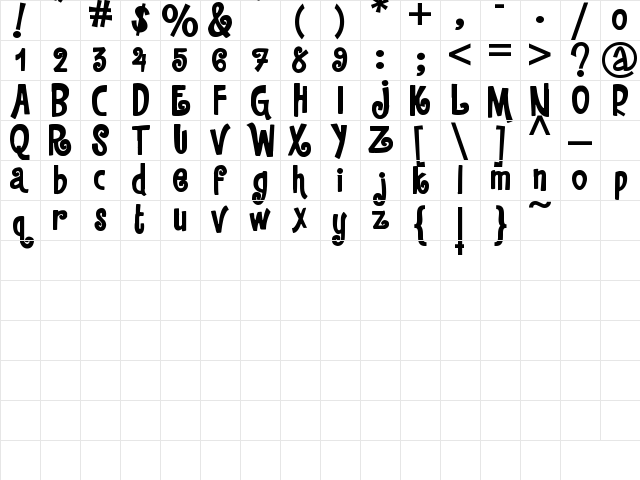
Complete Oh {Photo} Shoot! Regular glyph index. Displaying only characters natively supported by Oh {Photo} Shoot! Regular font.
Oh {Photo} Shoot! is a composed and adaptable typeface that performs quietly and consistently across a wide range of design contexts.